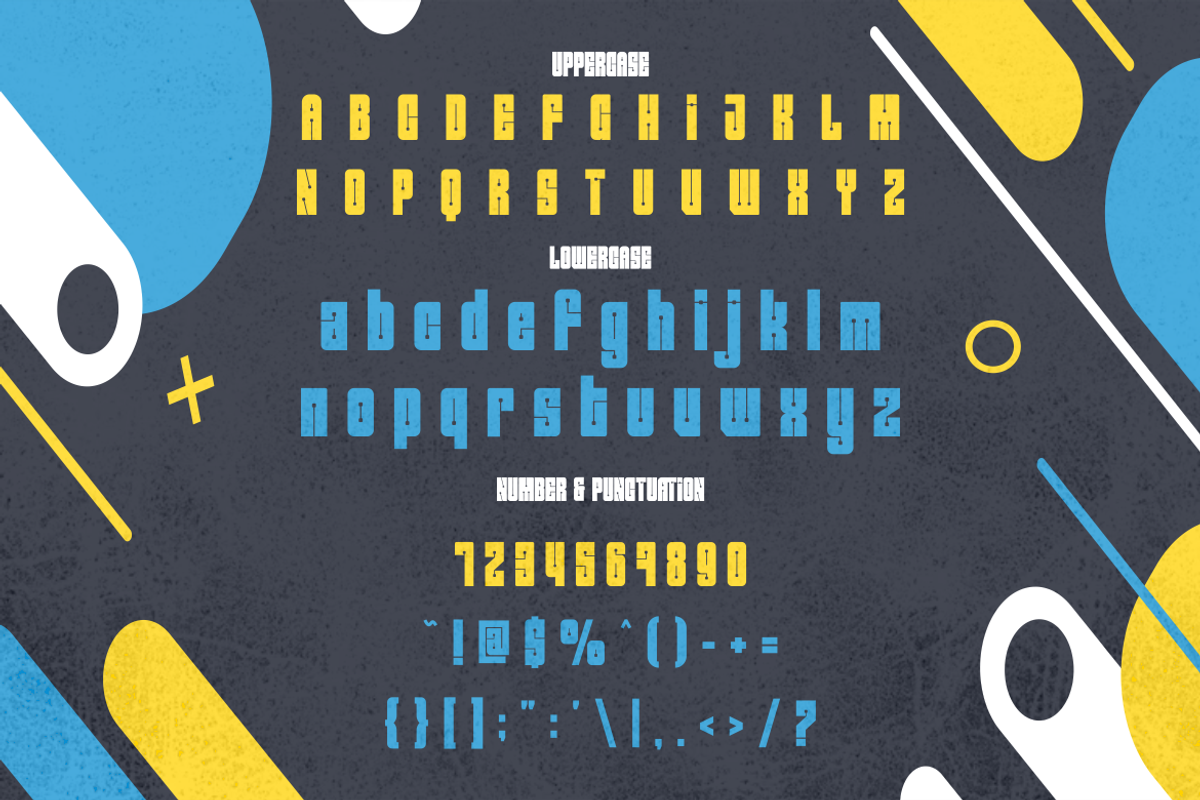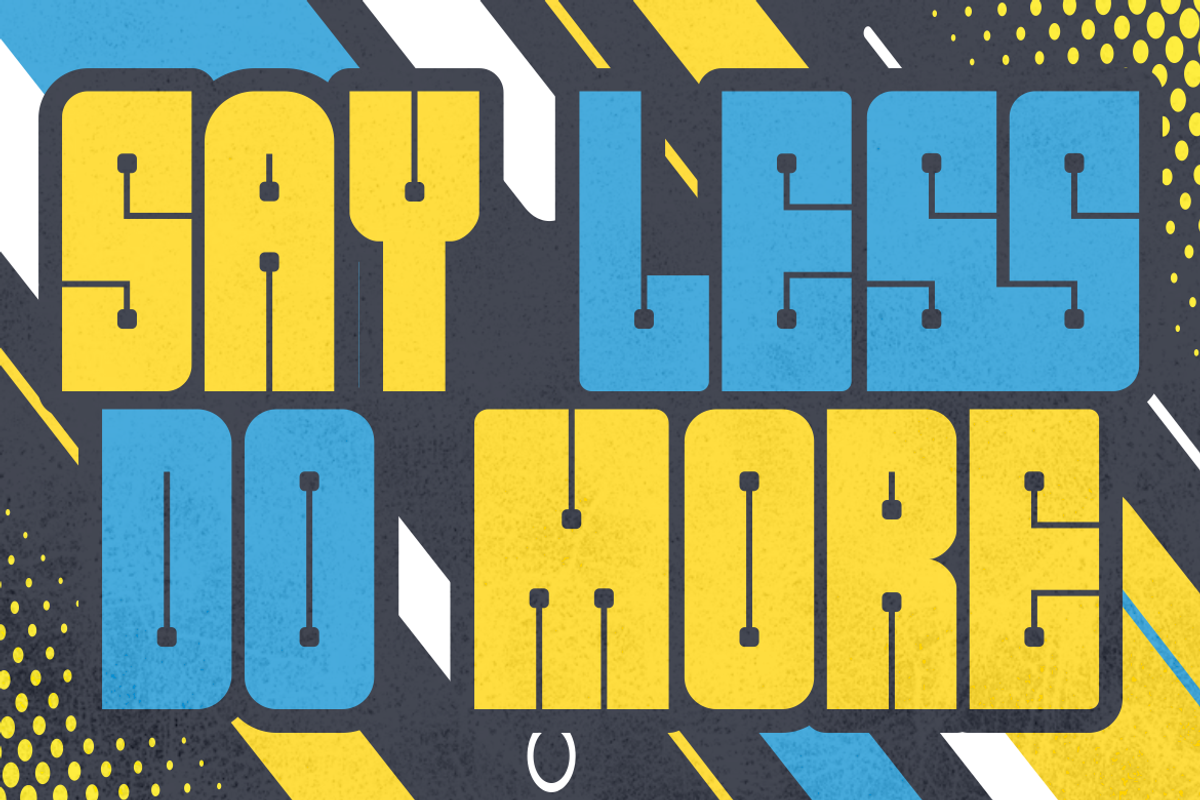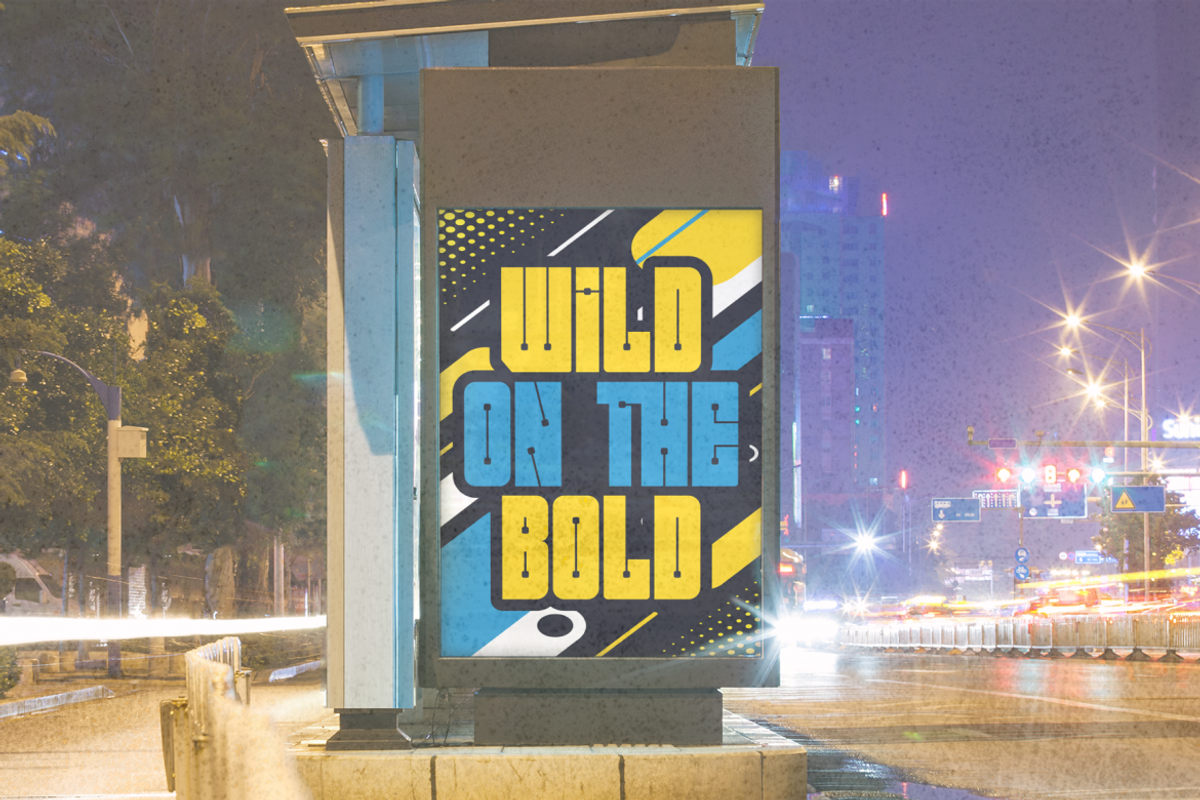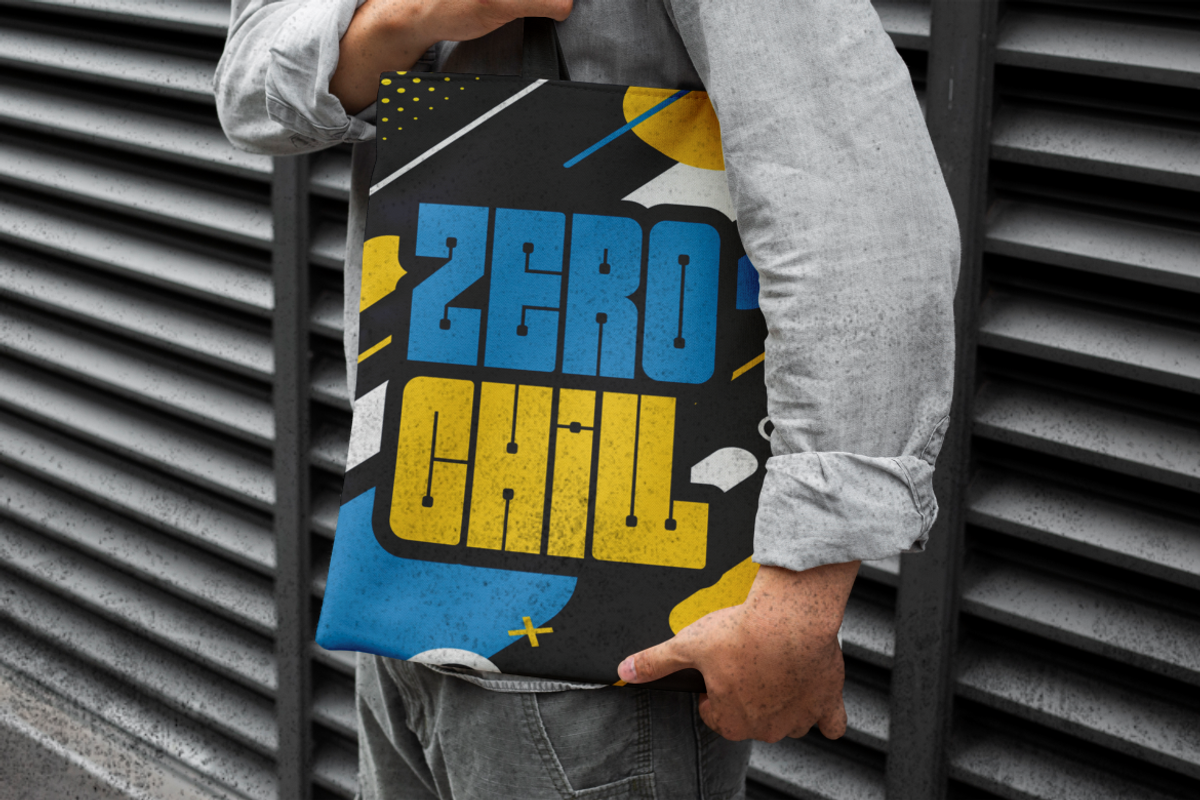
Bold Block - Display Bold Condensed
Bold Block is a power-packed display font that commands attention with its ultra-heavyweight form and tight, condensed structure. Each letter is built like a skyscraper—tall, thick, and dominating the visual space with minimal gaps. Rounded corners bring a soft, modern contrast to its hard, geometric verticality, while the internal dot-stroke motifs inject a tech-mechanical character that’s ideal for bold, future-forward branding. The color palette in the previews—yellow and blue on textured dark backgrounds—amplifies the font’s energetic urban edge. Whether placed on posters, merchandise, or signage, Bold Block delivers maximum impact in minimum space.
Designed for high-contrast layouts, Bold Block is a top choice for headlines, apparel designs, music covers, gaming logos, and streetwear campaigns. It thrives in designs that require a loud, confident tone, especially when combined with dynamic backgrounds or modern pop-art layouts. With its all-caps uppercase and solid lowercase construction, this font ensures versatility while maintaining its core identity—strong, unapologetic, and full of visual presence. Embrace the boldness and let Bold Block speak volumes in your next creative execution.